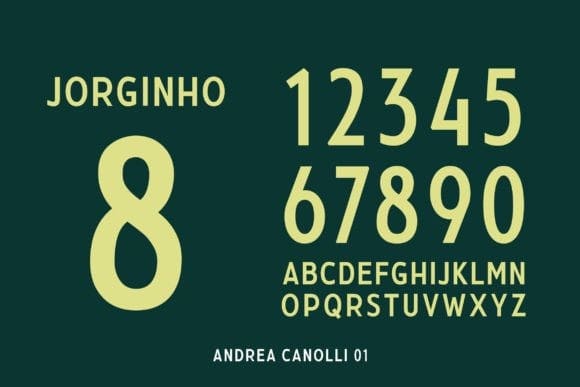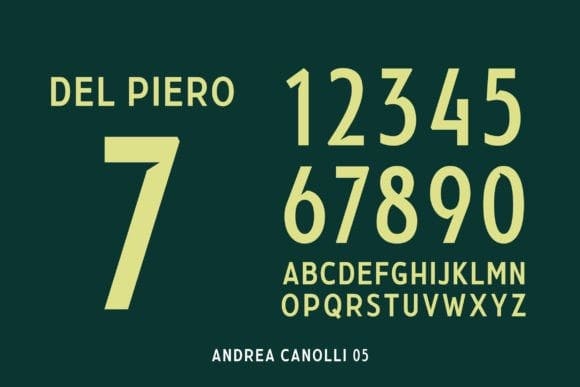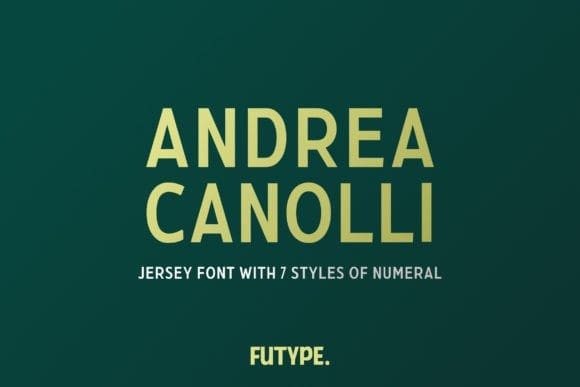
Andrea Canolli Font
Andrea Canolli Font is a typeface made for football/soccer or other sports jersey/kit name and number. Complete with 7 different styles of numeral that you can choose for your team.
Even though is made for sports, with sans serif style as a base font AndreaCanolli is also good for other purposes.